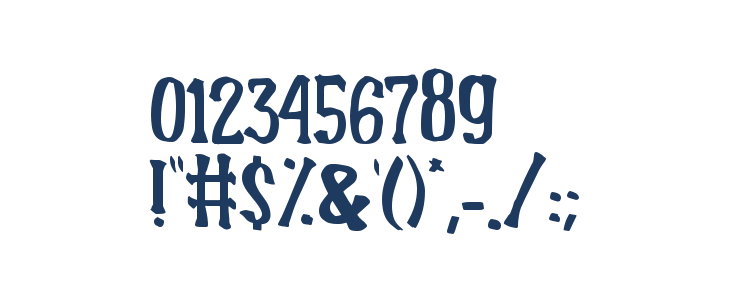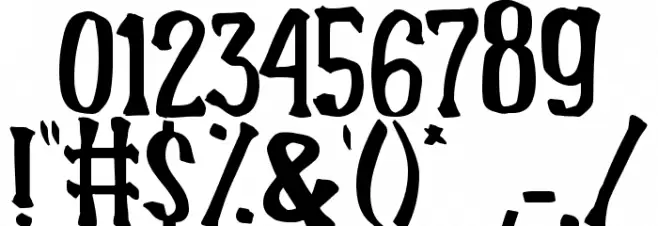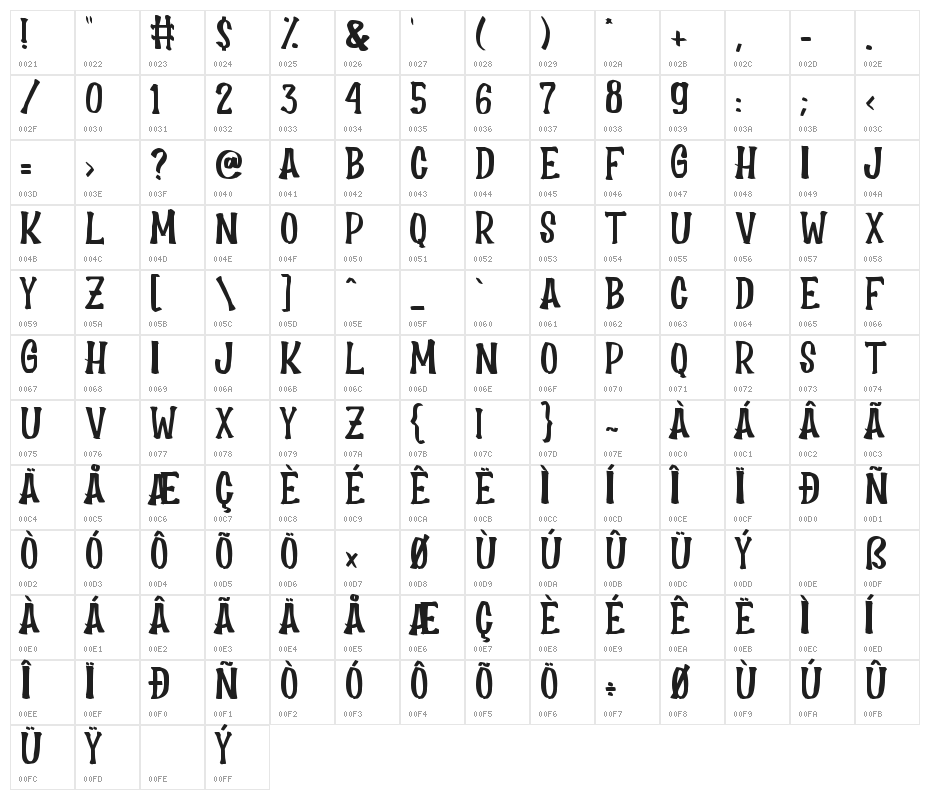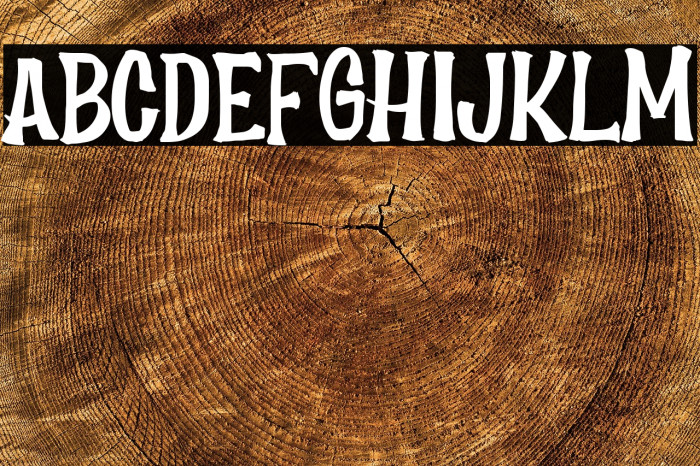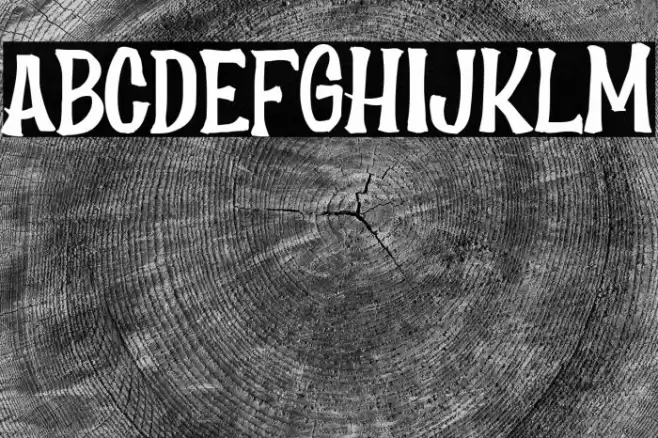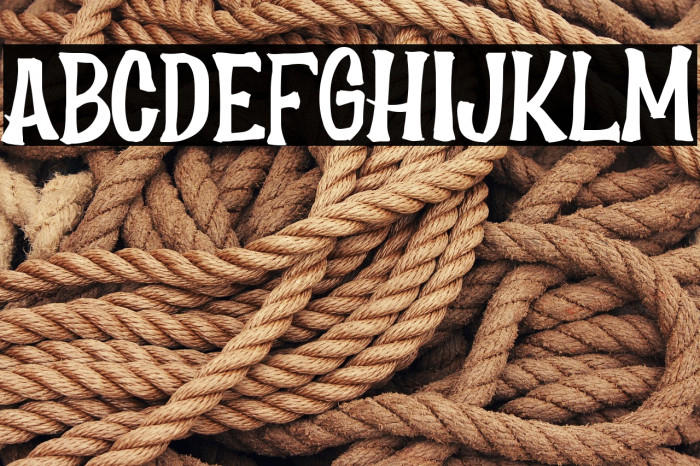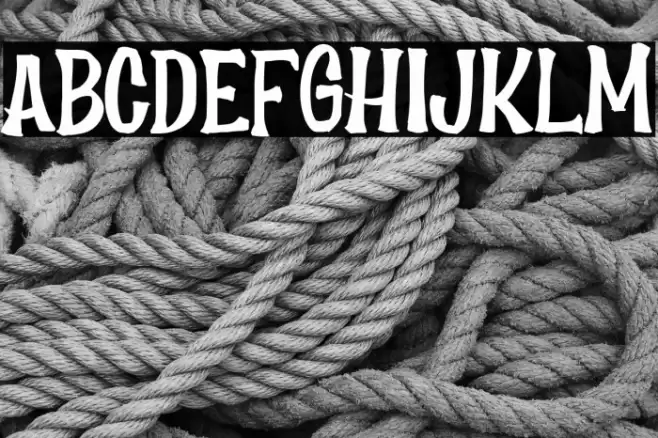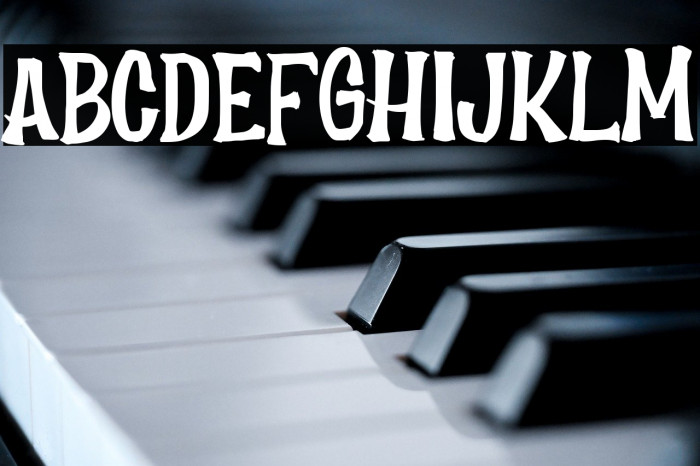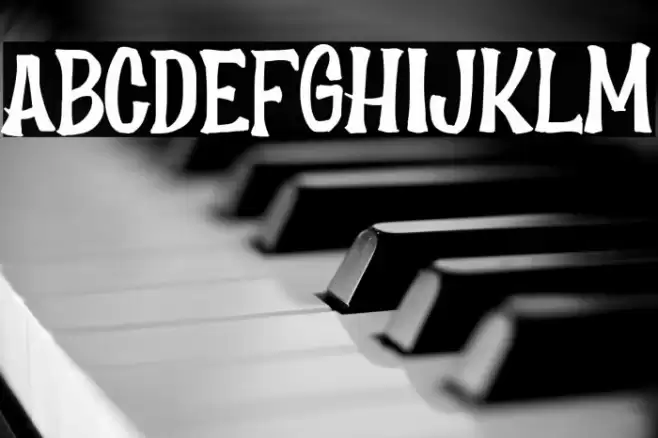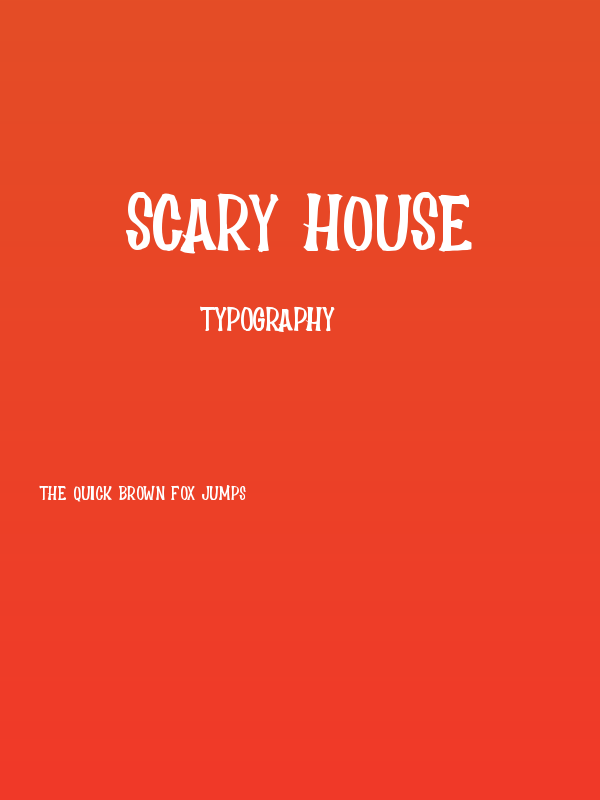
Scary House Font
Scary House Description
This font features a bold and playful design with a slightly irregular and hand-drawn appearance. The characters have a whimsical and spooky vibe, making them ideal for Halloween-themed projects or anything requiring a touch of fun and eeriness. The letters are bold with a slight slant, giving them a dynamic and energetic feel. The strokes are thick and consistent, providing a strong visual impact. The numbers and special characters maintain the same playful style, ensuring a cohesive look across all text elements.
Proposed ProjectsIdeal for Halloween invitations, themed posters, children's book covers, or any project needing a fun and eerie touch.